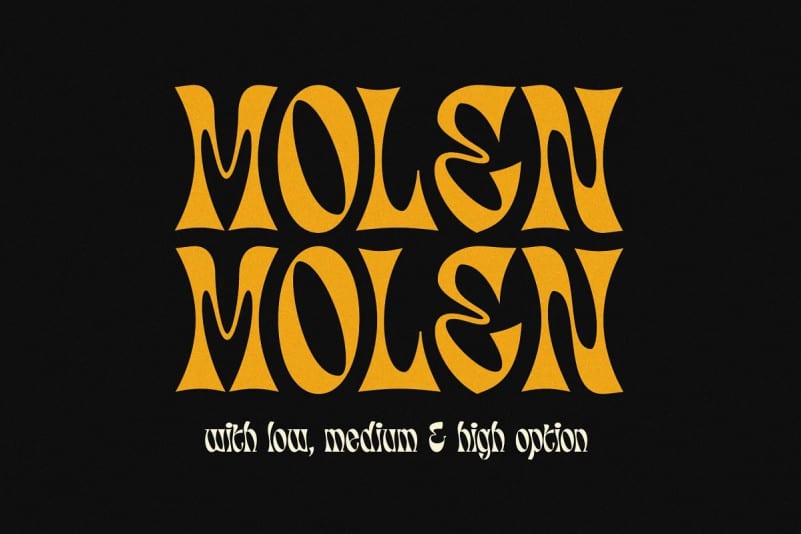
Molen Display Font
Molen Display Font combines classic and modern styles to make it look very trendy, is perfect for your design and make your designs look even bolder. It’s designed and shared by nurrontype. This typeface is a reverse contrast display font with unique characteristic. It would make your project different than any others. Each glyphs was create to make a harmony. It’s gonna be enlighten your work, definitely.